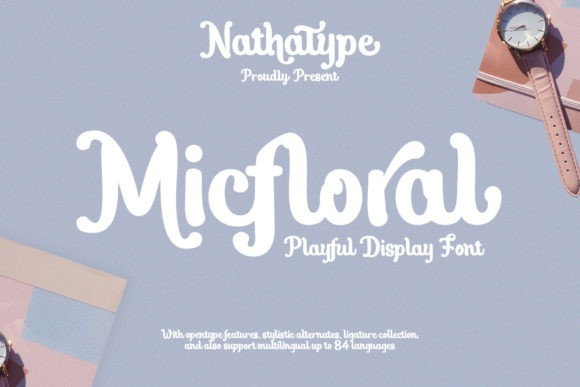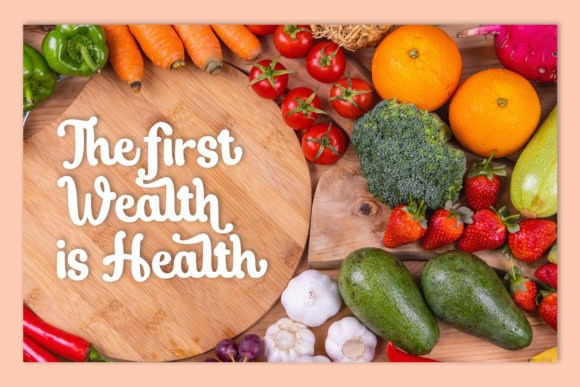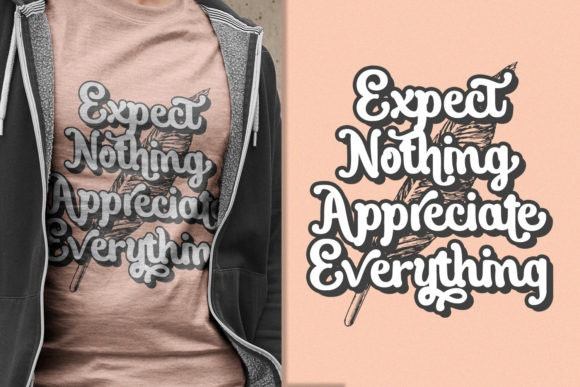
Micfloral Font
Micfloral is a beautiful handwritten font that will make any item seem bold and appealing. It is designed with the perfect balance between playfulness and refinement so you can deliver your message with style! This font is PUA encoded which means you can access all of the glyphs and swashes with ease!